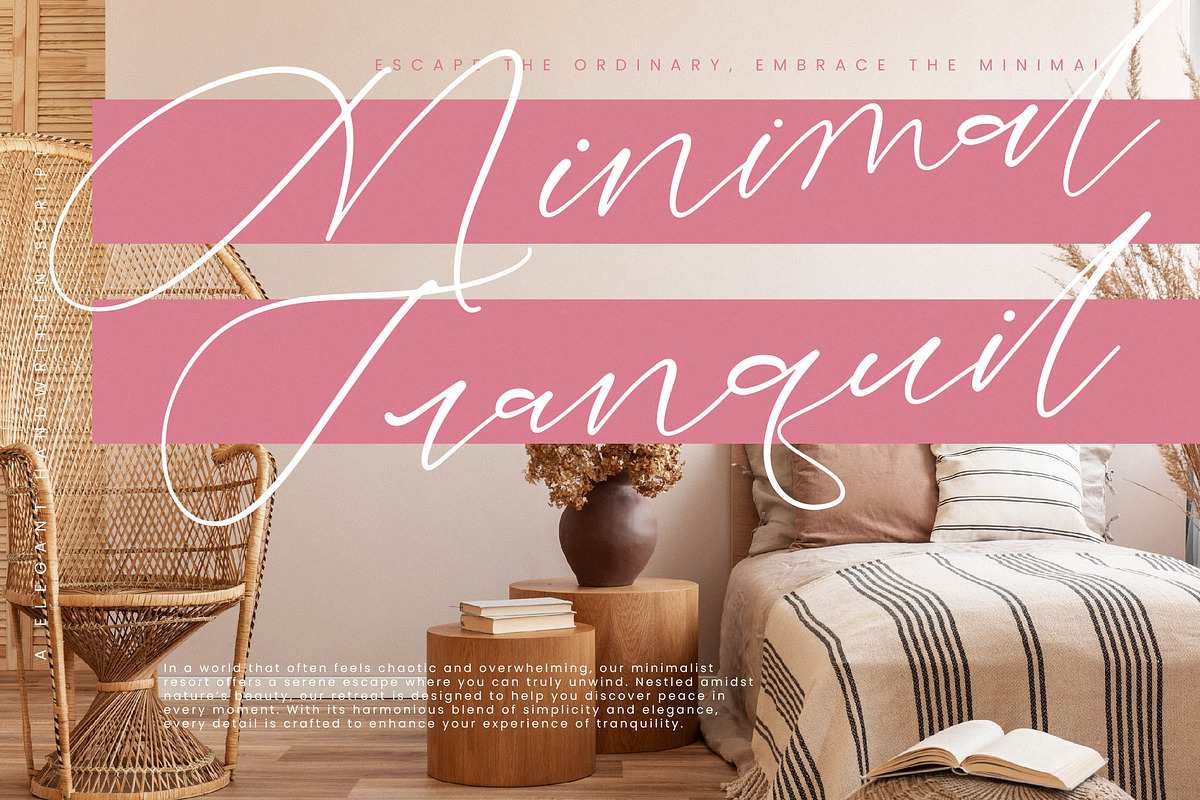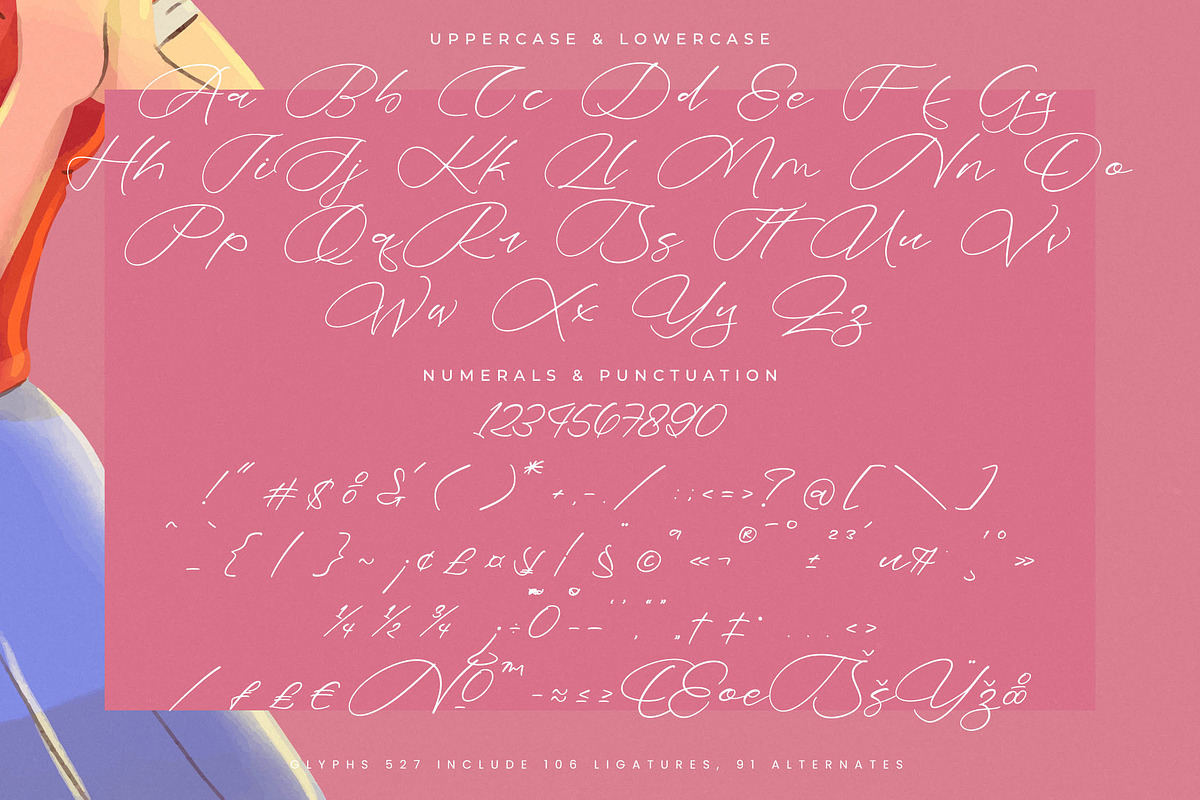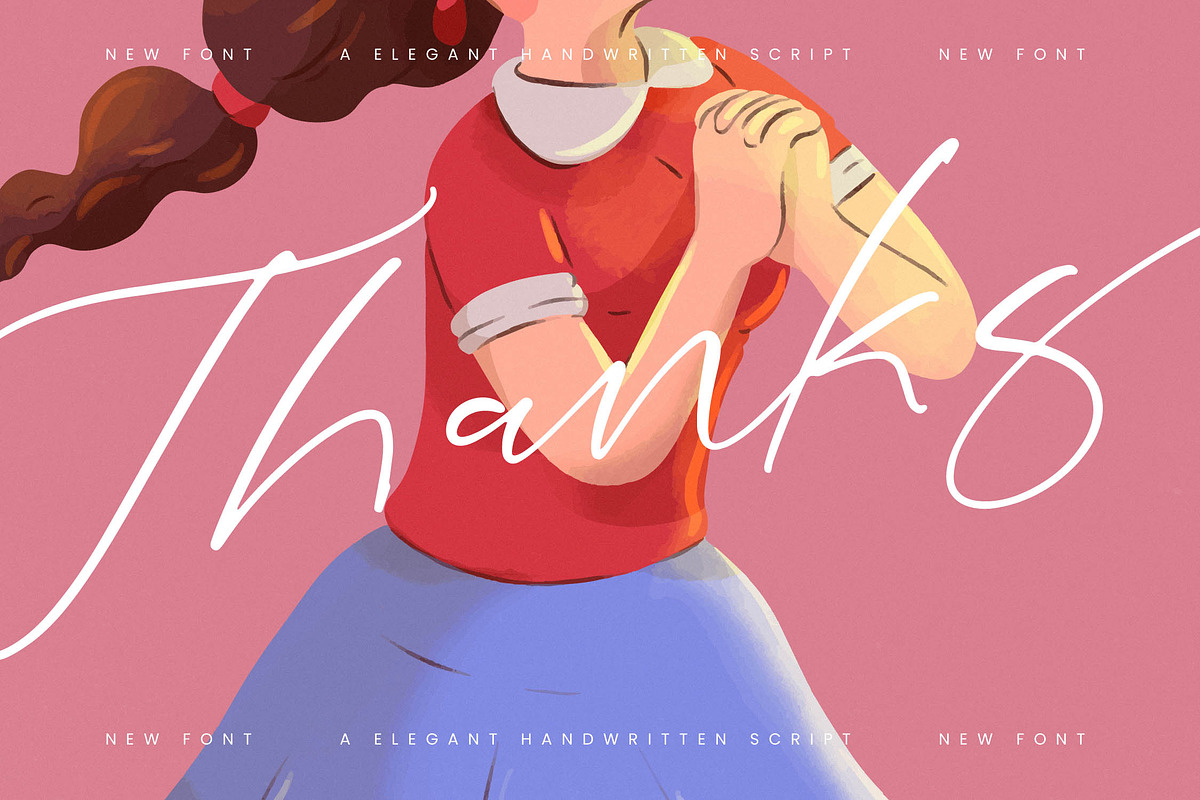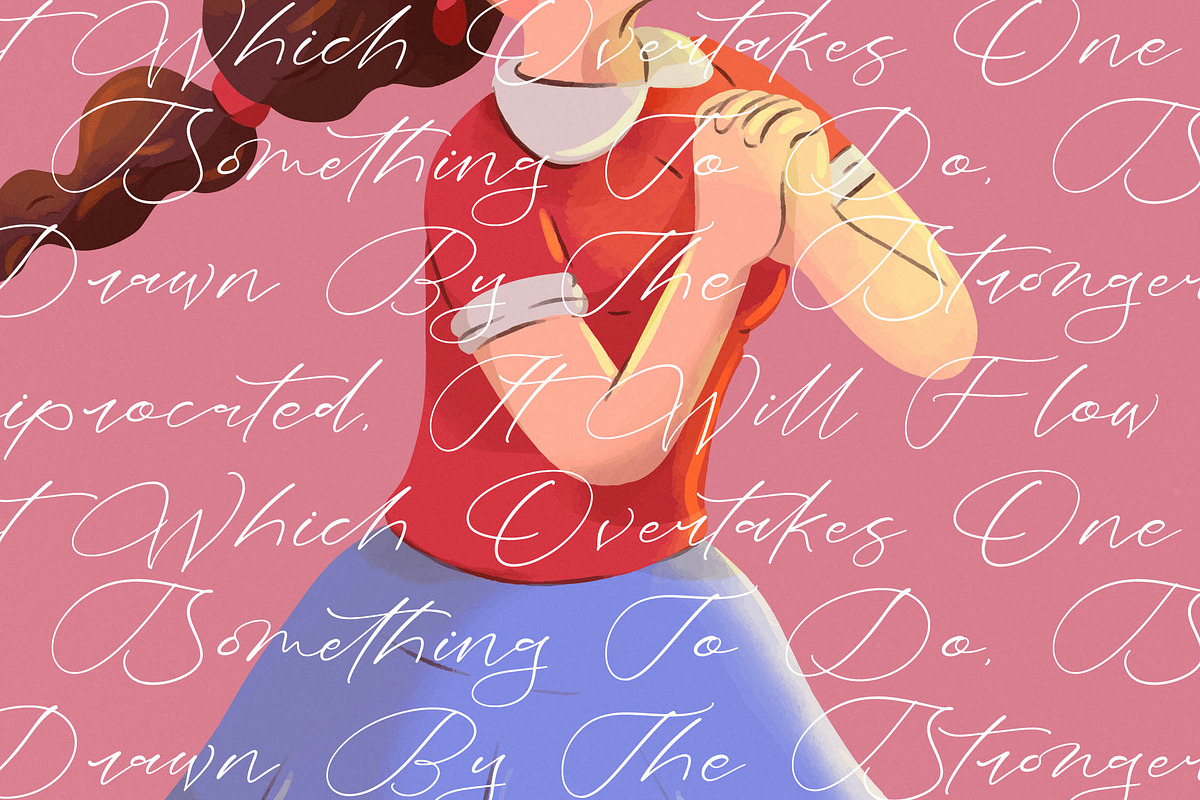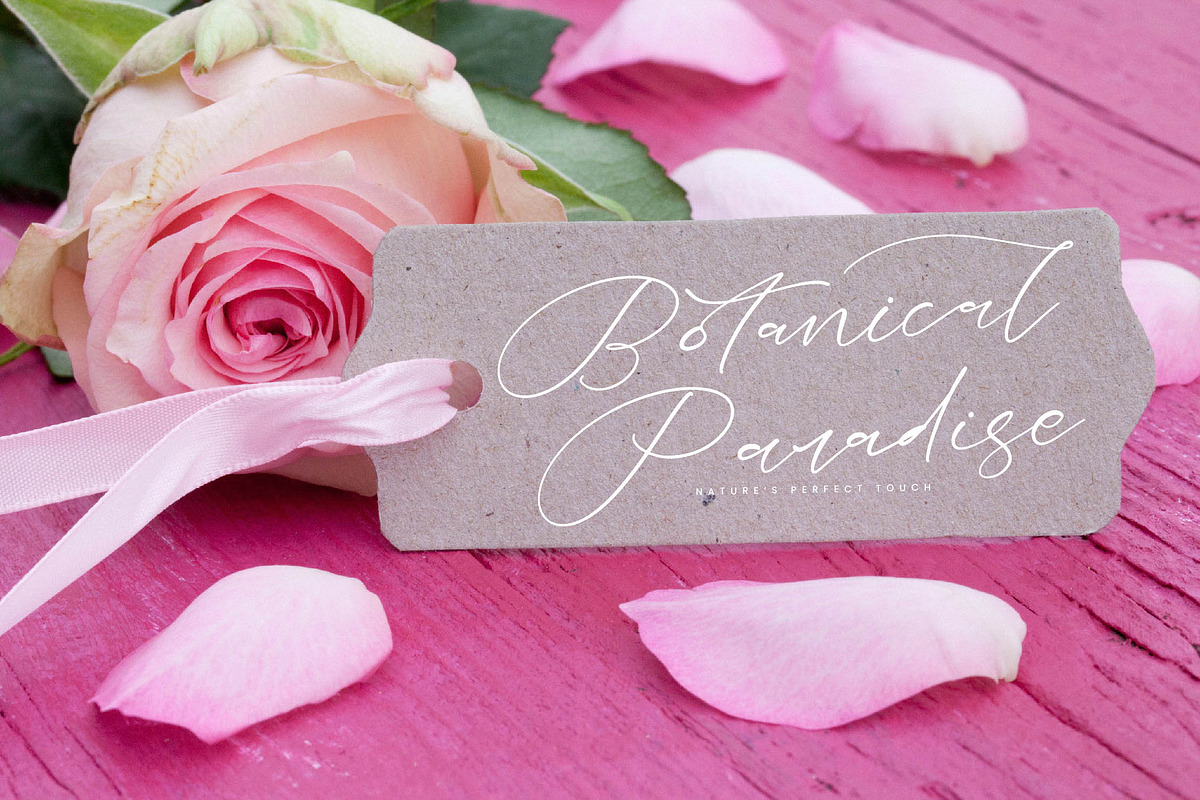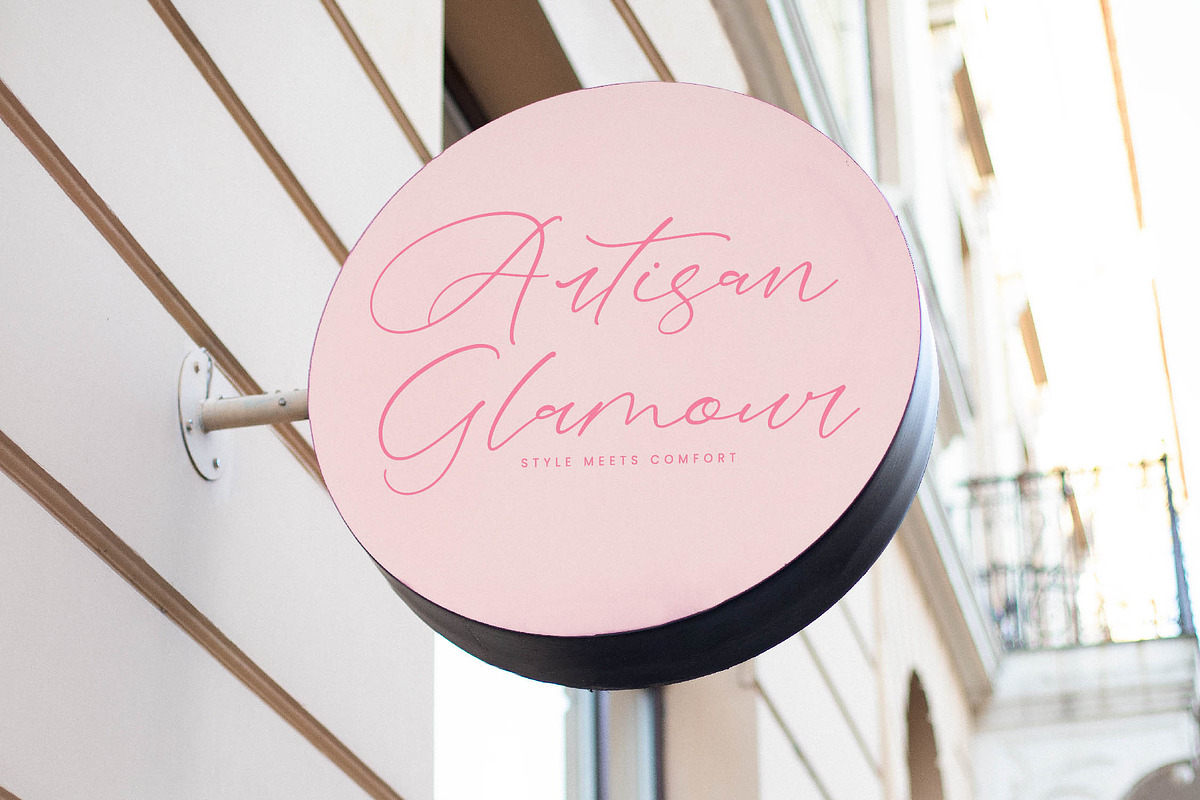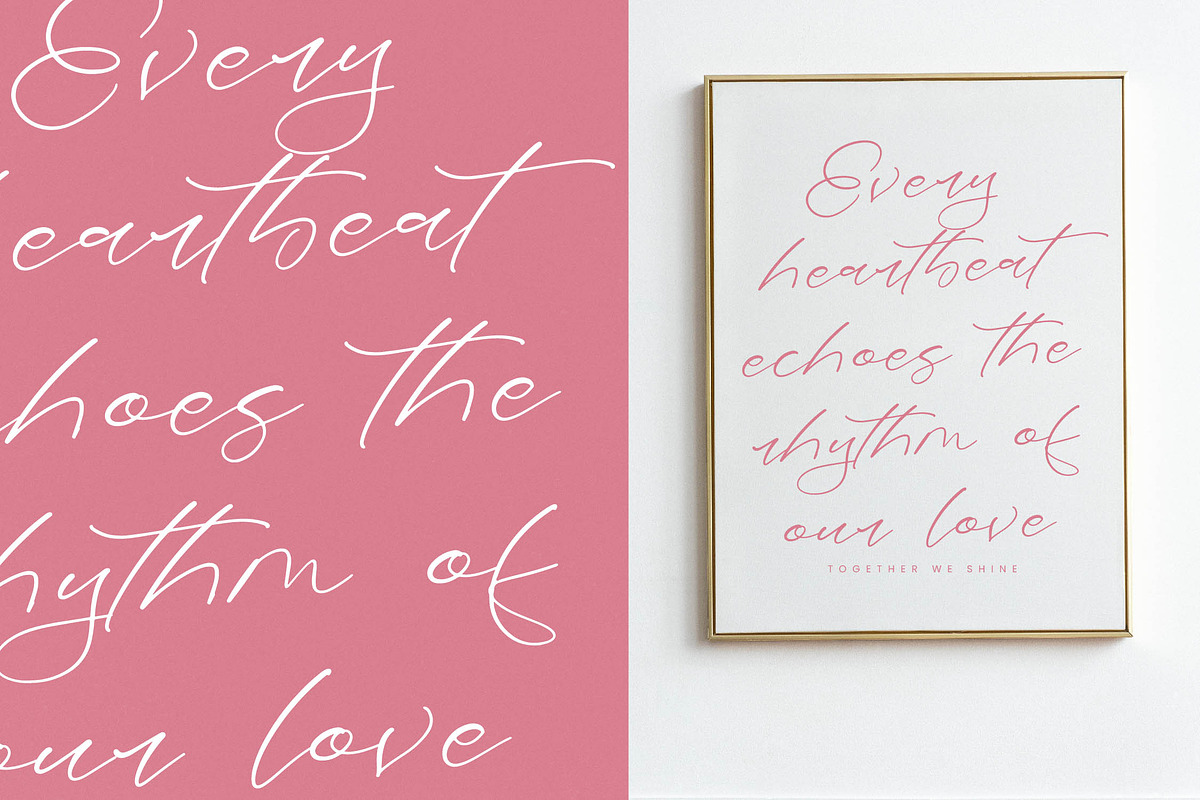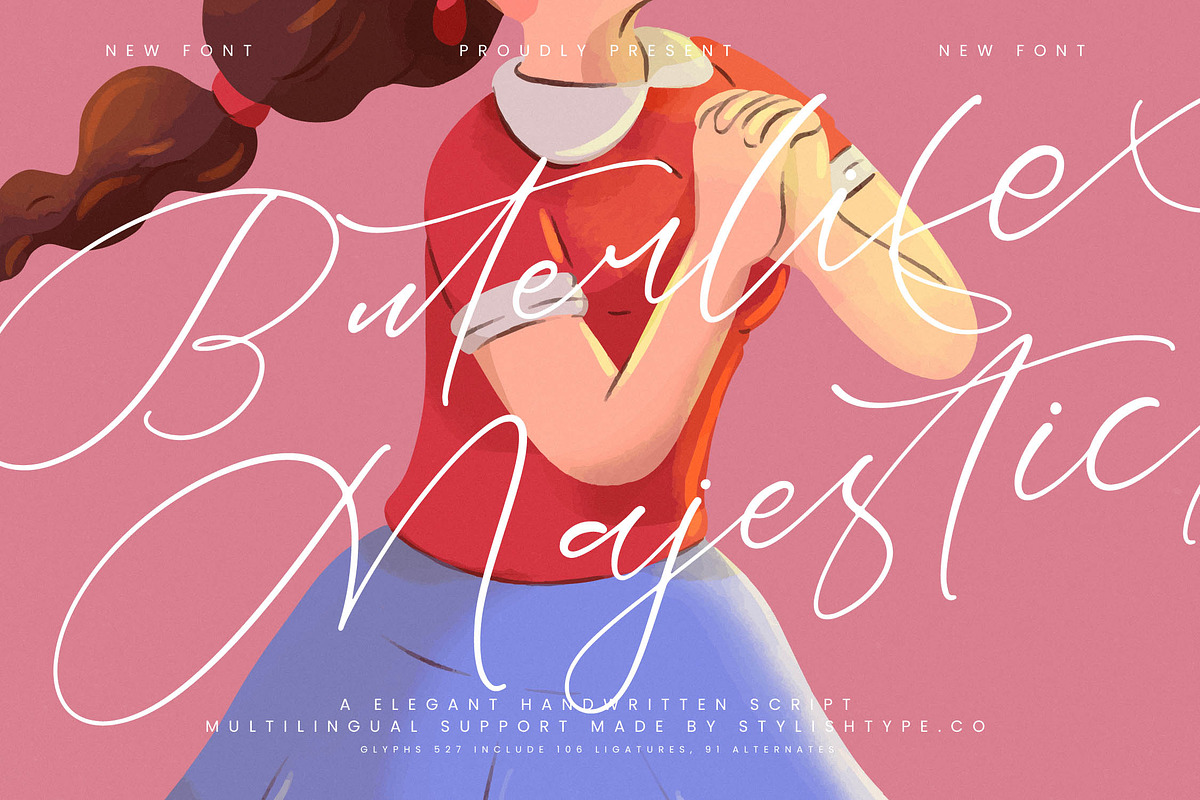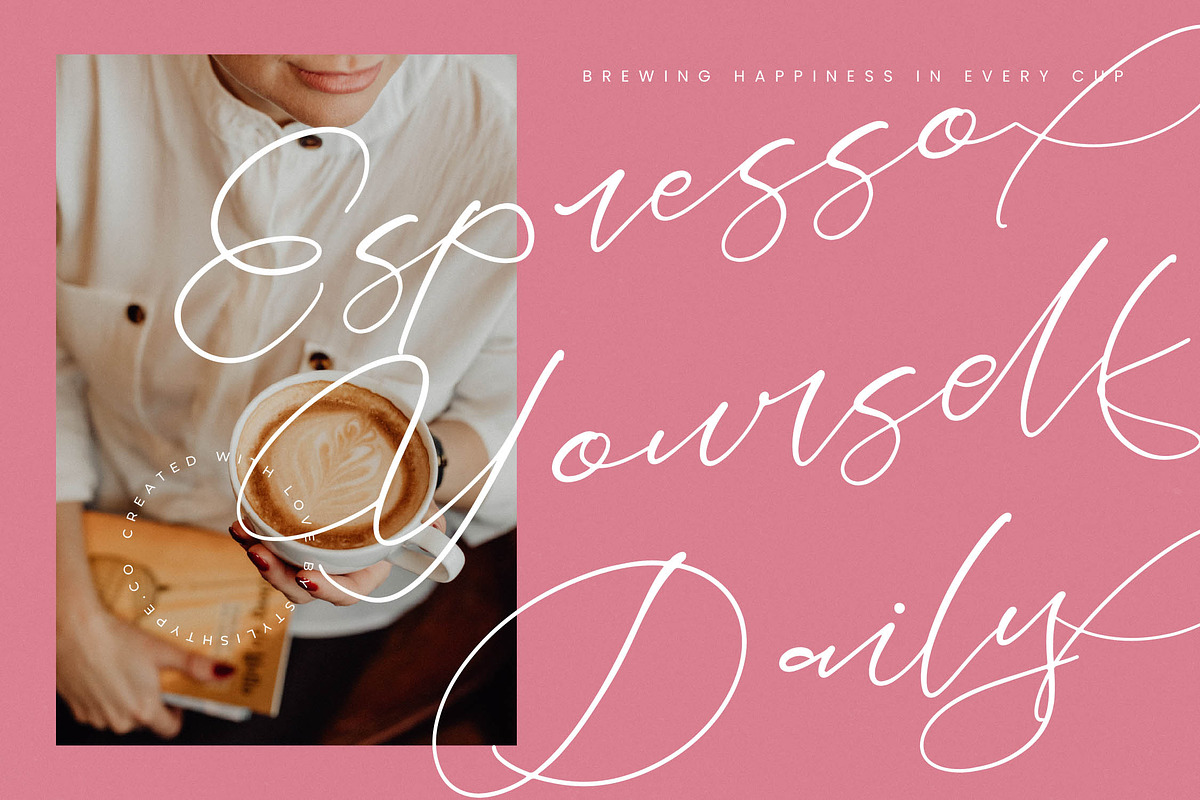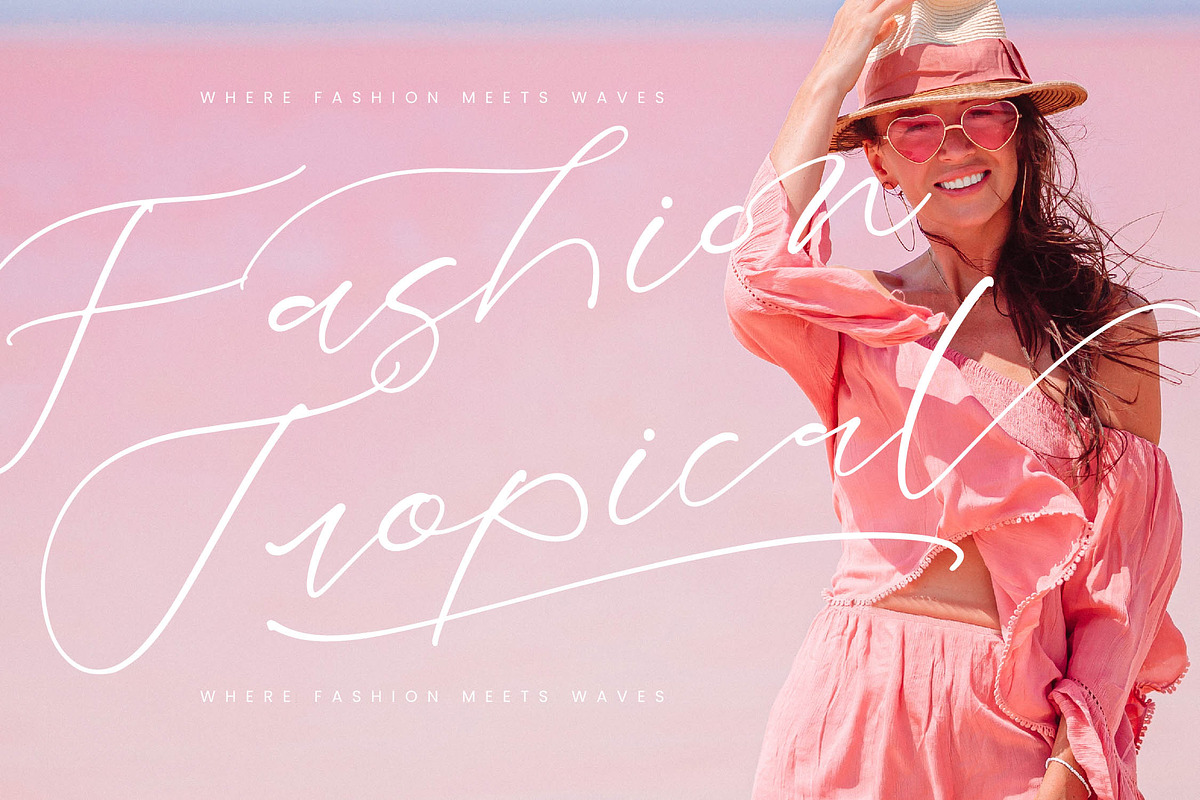
Buterlife Majestic Elegant Script
Buterlife Majestic - Elegant Handwritten Script , from Stylishtype.Co , Suitable for any projects such as: logos, branding projects, homeware designs, product packaging, mugs, quotes, posters, shopping bags, t-shirts, book covers, name card, invitation cards, greeting cards, label, photography, watermark, special events, and all your other luxury and beautiful projects that need a Luxury Script taste.
- 106 Ligature 91 Alternates & Swashes